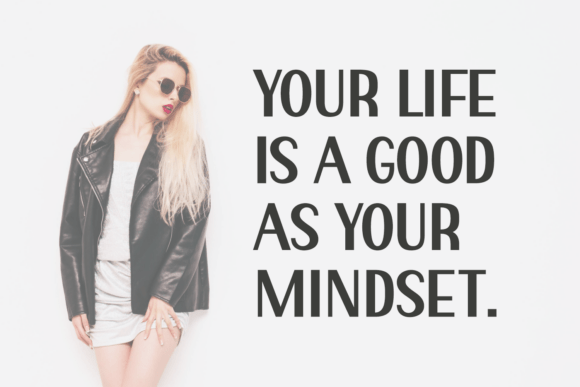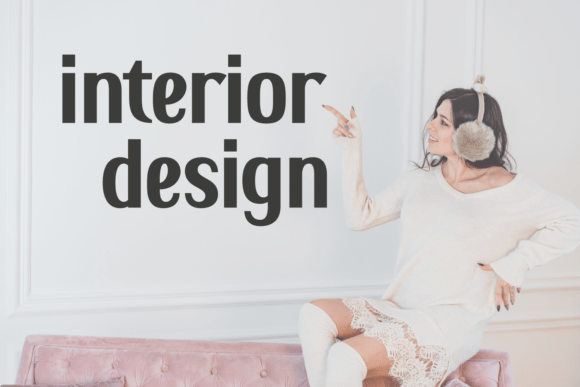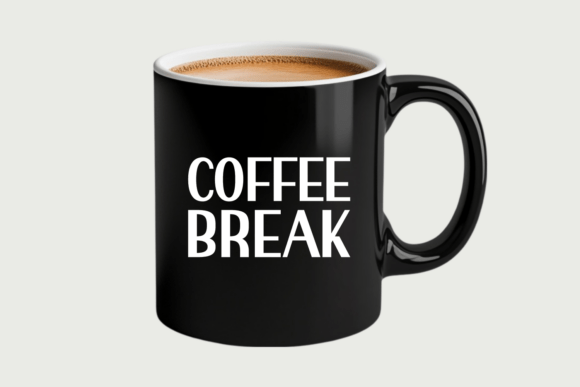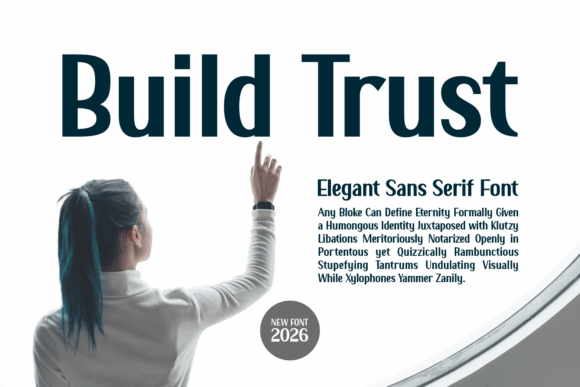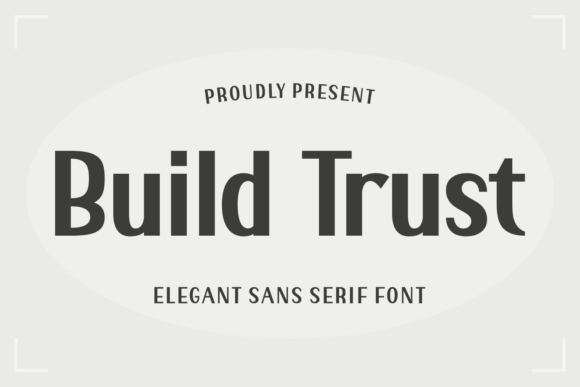
Introducing Build Trust: The Bold and Elegant Sans Serif Font
In the world of design, typography plays a crucial role in conveying messages and making a lasting impression. A well-crafted font can elevate a brand’s identity and make it stand out from the crowd. Build Trust, a bold and elegant sans serif font, is here to disrupt the noise with its uncompromising structure and powerful visual footprint.
Uncompromising Structure, Unmatched Elegance
Build Trust is built on sharp, clean lines that exude a sense of confidence and sophistication. Its bold and elegant design makes it the perfect choice for high-concept branding and new style aesthetics. The font’s industrial simplicity is balanced by a sharp, modern bite, giving it a unique edge that’s hard to ignore.
Engineered for Bold Communication
Build Trust is engineered for bold communication, making it the go-to tool for designers who want their message to hit hard and look effortless. Whether you’re working on a branding project, advertising campaign, or editorial content, Build Trust is the perfect choice for making a statement. Its powerful visual footprint demands attention, ensuring your message is heard loud and clear.
Key Features of Build Trust
- Bold and Elegant Design: Build Trust boasts a bold and elegant sans serif design that’s perfect for high-concept branding and new style aesthetics.
- Sharp, Clean Lines: The font’s sharp, clean lines exude a sense of confidence and sophistication.
- Industrial Simplicity: Build Trust strikes a balance between industrial simplicity and a sharp, modern bite.
- Powerful Visual Footprint: The font’s powerful visual footprint demands attention, ensuring your message is heard loud and clear.
Why Choose Build Trust?
- Versatility: Build Trust is versatile and can be used for a wide range of design projects, from branding and advertising to editorial content.
- Legibility: The font’s bold and elegant design ensures excellent legibility, even at small sizes.
- Uniqueness: Build Trust’s unique blend of industrial simplicity and sharp, modern bite sets it apart from other fonts.
- Use it as a Headline Font: Build Trust is perfect for headlines and titles, where its bold and elegant design can make a lasting impression.
- Pair it with Other Fonts: Build Trust can be paired with other fonts to create a unique and visually appealing typography system.
- Experiment with Different Sizes: Don’t be afraid to experiment with different sizes and weights to create visual hierarchy and emphasis.
In conclusion, Build Trust is a bold and elegant sans serif font that’s perfect for designers who want to make a statement. Its uncompromising structure, powerful visual footprint, and versatility make it an excellent choice for high-concept branding and new style aesthetics. With its sharp, clean lines and industrial simplicity, Build Trust is sure to elevate your design projects and make them stand out from the crowd.